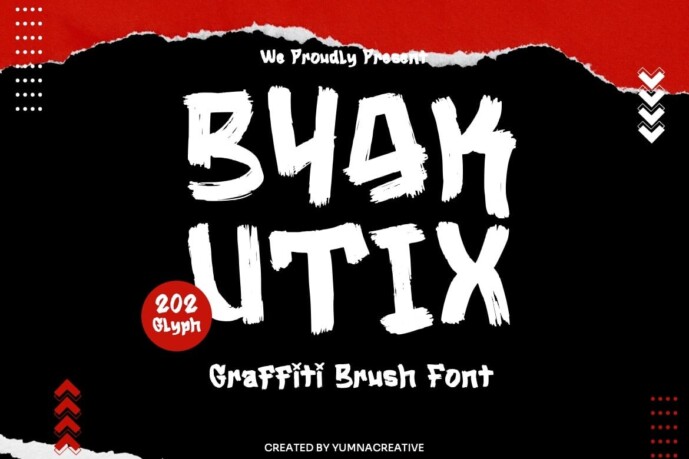
Byakutix Graffiti Brush Font
Byakutix – Graffiti Brush Font
This font is a delicate, elegant, and fluid handwritten font. It features a beautiful and unique blend of ligatures per letter, so the authors composed it with a slight swirling overlay, so that a modern font is formed and ready to make a splash by adding an elegant and unique touch to your next design project. Add it to your most creative ideas and watch how it brings them to life!
FEATURES
• Uppercase and lowercase
• Ligature
• Numbering and punctuation
• Multilingual support